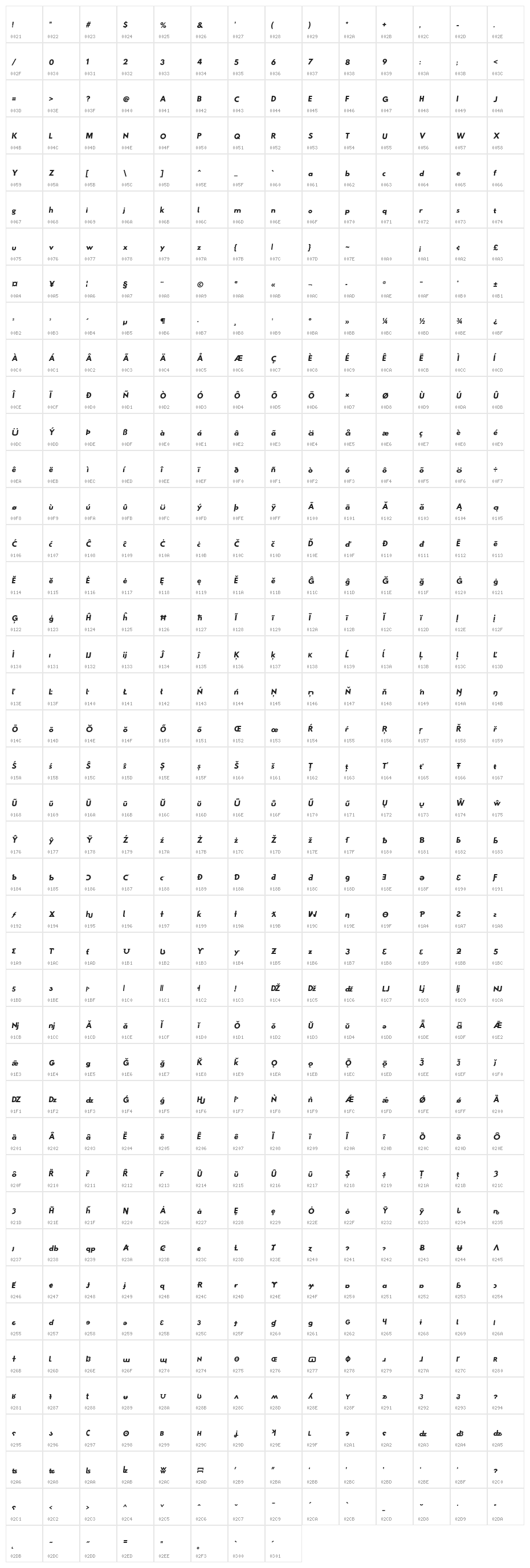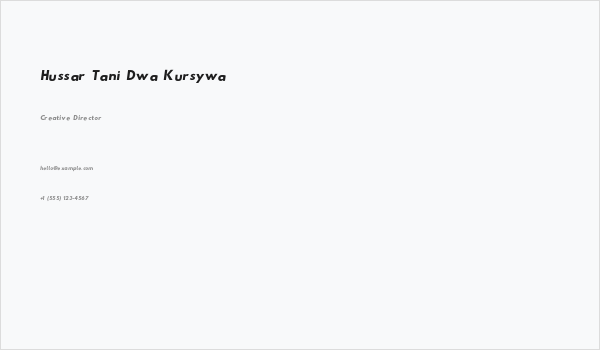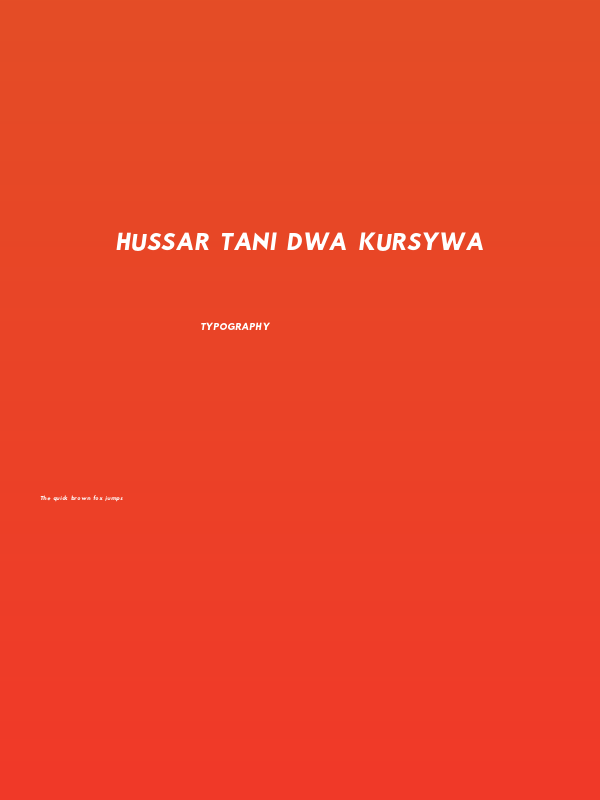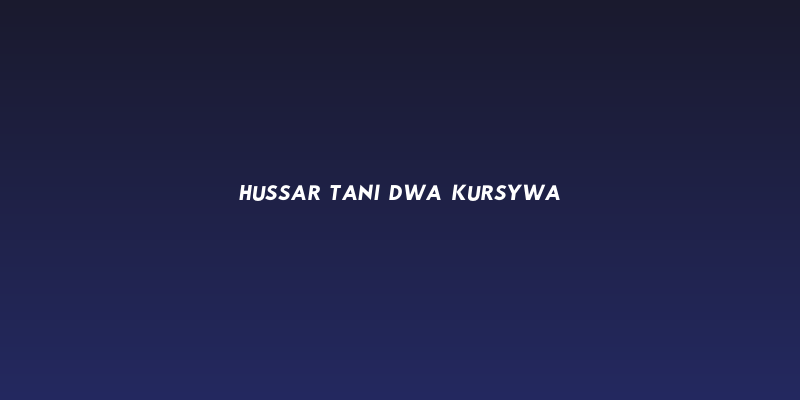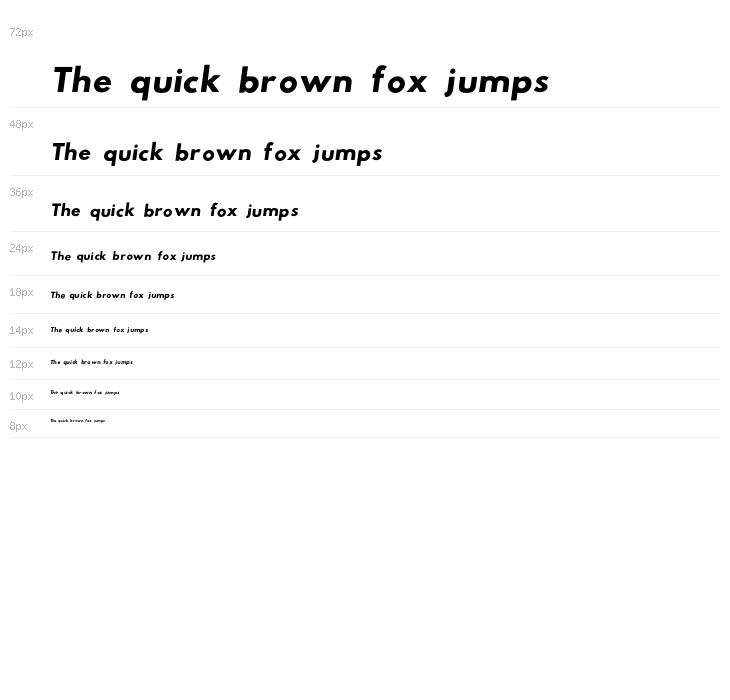
Hussar Tani Dwa Kursywa Font
Hussar Tani Dwa Kursywa Description
This font exhibits a modern and dynamic style with a slight slant, giving it an italicized appearance. The characters are bold and have a consistent stroke width, contributing to a clean and robust look. The uppercase and lowercase letters are well-proportioned, with a slight emphasis on the curves, particularly noticeable in letters like 'a', 'e', and 's'. The numerals are clear and distinct, maintaining the font's overall boldness. Special characters are well-integrated, ensuring versatility in various design contexts. The font's design is suitable for projects that require a contemporary and energetic feel.
| Proposed Projects | Ideal for branding, advertising, headlines, and digital media projects that require a bold and modern aesthetic. |